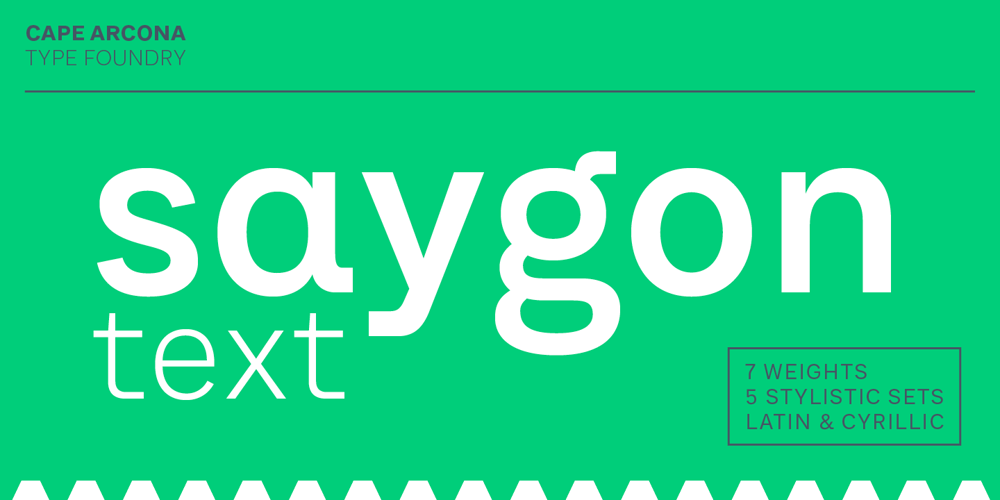
CA Saygon Text Font Family was designed by Stefan Claudius and published by Cape Arcona Type Foundry. CA Saygon Text contains 14 styles and family package options. CA Saygon Text is the logic consequence of CA Saygon. It is much calmer and therefore also suitable for reading texts and everyday’s editorial tasks. Basic shapes and proportions were adopted from Saygon and continued in such a way that a font family from Thin to Extrabold resulted. A fundamental inspiration were early static grotesque typefaces such as Akzidenz Grotesk. Nevertheless, the typeface was by no means intended to have a historical look. Thus, a relatively high x-height was chosen, which makes the typeface quite economical in type-setting, since the letters appear visually larger. A relatively small line spacing with good legibility can be achieved due to the small ascenders and the low cap height. Letters like f and t, which otherwise tend to end in curves, were given right angles, which on the one hand meets certain design elements of the original Saygon, but on the other hand also refers to contemporary trends in typeface design. A special feature are the five styles in which CA Saygon Text can be used. The default setting is the Helvetica style, with two-storey a and g. The Futura style has a single-storey a and a two-storey g accordingly. The third style with two-storey a and three-storey g is called the Franklin style. But the real highlight is the Cape style with single-storey a and three-storey g – a real rarity up to now. Let yourself be inspired by this unusual typeface. If you like it even more progressive, you should try the flat style, which continues the right angles in a, g, and y as well. Thanks to the Cyrillic and Latin Extended character sets, a huge linguistic area is covered that even extends to Vietnam! Even the exotic German capital-double-s is available and appears automatically when typed between other capital letters. Numerous OpenType features make life easier for the professional typographer: there are fractions, superscript and subscript numbers, as well as proportional and tabular capitals.